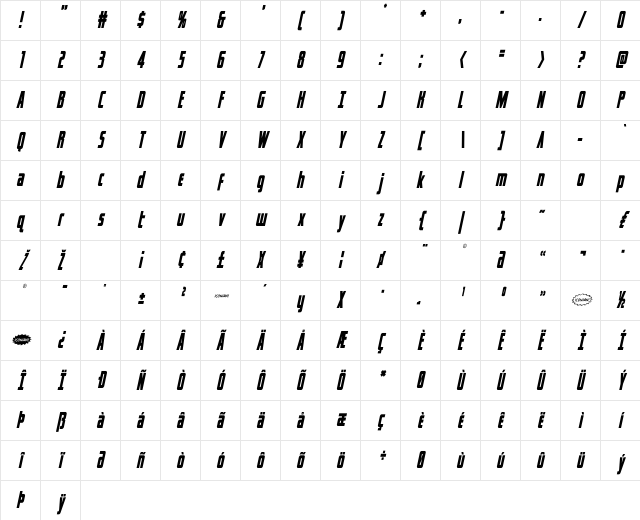
Complete Captain Canaveral Condens Ital Condensed Italic glyph index. Displaying only characters natively supported by Captain Canaveral Condens Ital Condensed Italic font.
Captain Canaveral Condens Ital is a composed and adaptable typeface that performs quietly and consistently across a wide range of design contexts. The slanted form adds forward momentum and visual energy. Its narrow stance lets it pack a punch even in space-constrained designs.